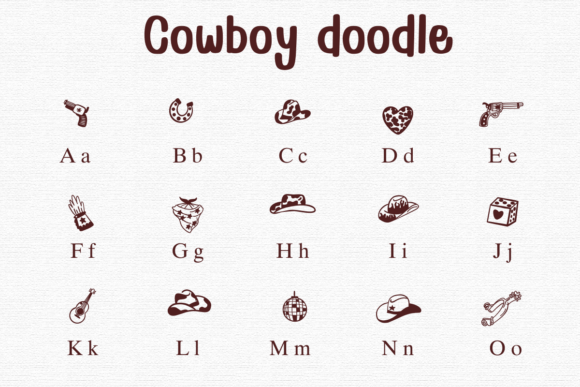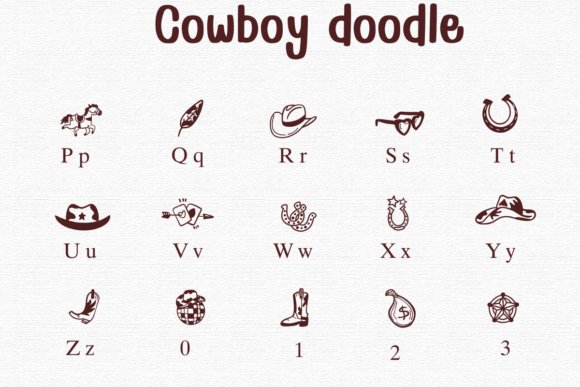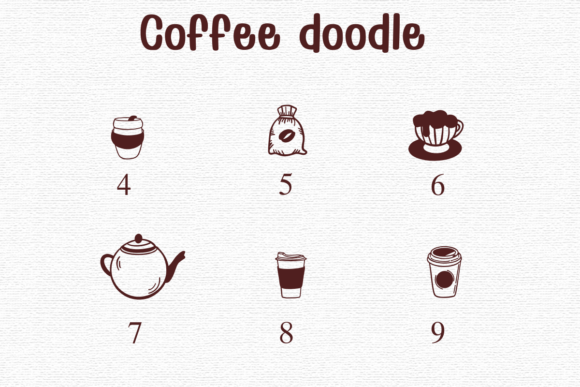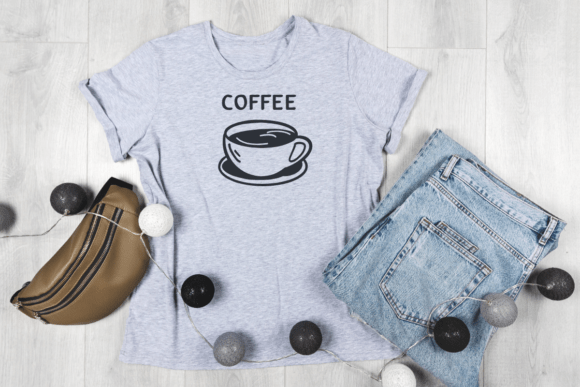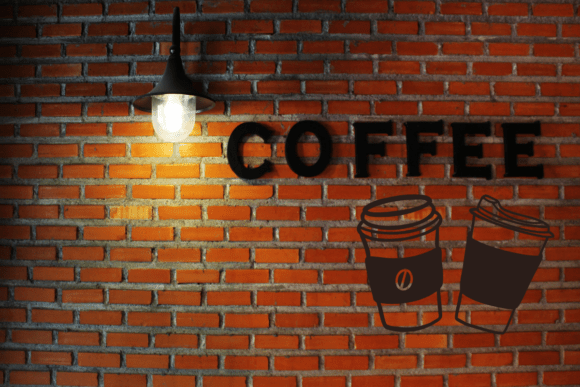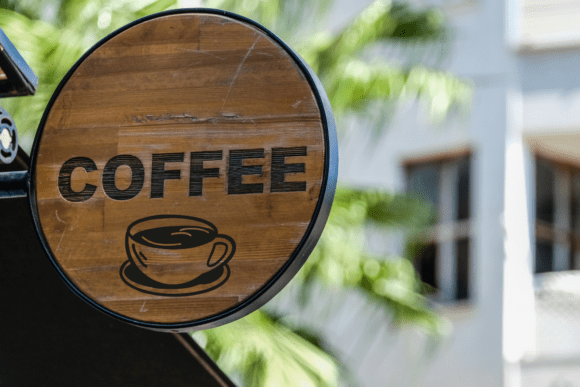
Coffee Doodle Font: A Charming Dingbats Font for Coffee Lovers
Are you a designer, crafty person, or coffee enthusiast looking for a unique and charming font to add a touch of warmth and coziness to your projects? Look no further than the Coffee Doodle Font! This delightful dingbats font is packed with a variety of coffee-themed illustrations that are sure to perk up your designs.
What is Coffee Doodle Font?
Coffee Doodle Font is a charming dingbats font that features a warm and inviting collection of coffee-themed illustrations. From cups and mugs to beans, grinders, and takeaway drinks, this font has everything you need to create stunning designs that are sure to delight coffee lovers. With its cozy caffeine vibe, Coffee Doodle Font is perfect for café branding, menu designs, coffee lovers’ merchandise, and social media visuals.
Key Features of Coffee Doodle Font
- Coffee-themed illustrations: The font features a wide range of coffee-themed illustrations, including cups, mugs, beans, grinders, and takeaway drinks.
- Charming and whimsical design: The illustrations are designed in a charming and whimsical style that is sure to add a touch of warmth and coziness to your designs.
- Dingbats font: Coffee Doodle Font is a dingbats font, which means that it’s made up of illustrations rather than traditional letters and numbers.
- Perfect for coffee lovers: Whether you’re designing for a coffee shop, creating merchandise for coffee enthusiasts, or simply want to add a touch of coffee culture to your designs, Coffee Doodle Font is the perfect choice.
Uses for Coffee Doodle Font
Coffee Doodle Font is a versatile font that can be used in a variety of ways. Here are some ideas to get you started:
- Café branding: Use Coffee Doodle Font to create a unique and memorable brand identity for your coffee shop or café.
- Menu designs: Add a touch of warmth and coziness to your menu designs with Coffee Doodle Font’s charming illustrations.
- Coffee lovers’ merchandise: Create stunning merchandise for coffee enthusiasts, such as t-shirts, mugs, and tote bags, using Coffee Doodle Font.
- Social media visuals: Use Coffee Doodle Font to create eye-catching social media visuals that are sure to delight coffee lovers.
Tips for Using Coffee Doodle Font
Here are some tips for getting the most out of Coffee Doodle Font:
- Experiment with different colors: Coffee Doodle Font looks great in a variety of colors, so don’t be afraid to experiment and find the perfect color scheme for your design.
- Mix and match illustrations: Coffee Doodle Font features a wide range of illustrations, so try mixing and matching different elements to create a unique design.
- Use it with other fonts: Coffee Doodle Font pairs well with a variety of other fonts, so try using it with a bold font for headings and a clean font for body text.
Coffee Doodle Font is a charming dingbats font that is sure to delight coffee lovers and designers alike. With its wide range of coffee-themed illustrations and charming design, it’s the perfect choice for café branding, menu designs, coffee lovers’ merchandise, and social media visuals. So why not give it a try and see how it can add a touch of warmth and coziness to your designs?